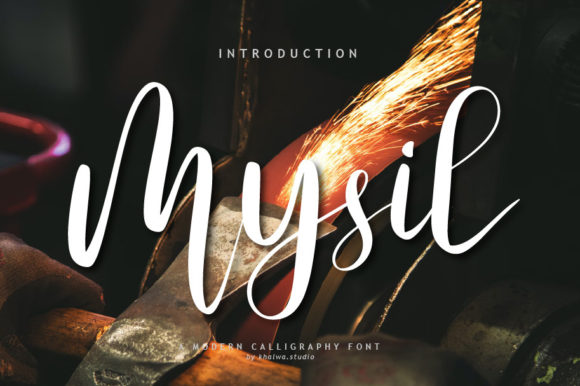
Step into the world of captivating handwritten elegance with Mysil Script Font, a timeless treasure created by khalwa.studio. This exquisite font, with its captivating curves and flowing lines, will leave you spellbound. Immerse yourself in the beauty of its intricate details, crafted with the utmost care and precision.
With Mysil Script, your words will dance across the page, carrying a touch of warmth and charm. Its delicate strokes evoke a sense of nostalgia, reminiscent of love letters penned in days gone by. Whether you're designing logos, branding, or heartfelt quotes, Mysil Script will elevate your creations, adding a touch of timeless romance.
Experience the magic of Mysil Script and let your designs flourish. Its versatility knows no bounds, adapting seamlessly to a myriad of projects. From wedding invitations that exude elegance to whimsical branding that captures hearts, Mysil Script will transform your vision into a breathtaking reality.
Don't resist the allure of Mysil Script. Embrace its beauty and let your creativity soar. Its unique and captivating style will ignite your passion and inspire you to create designs that resonate with your audience.